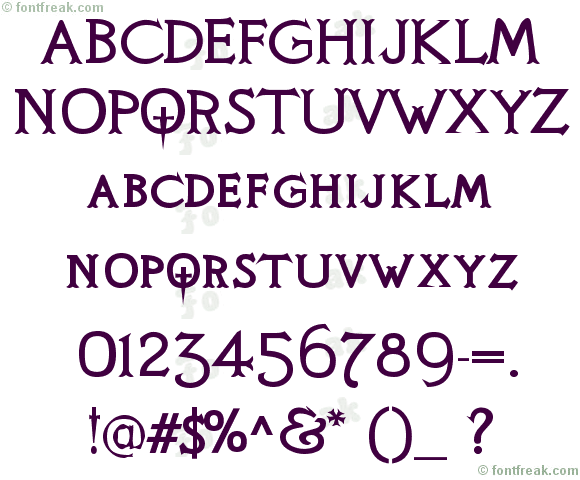
Knights Quest
The Knights Quest font, crafted by Gemfonts, is a striking display typeface that exudes a sense of adventure and medieval charm. This decorative font features a bold stroke weight, providing a commanding presence while maintaining a smooth and captivating aesthetic. The contrast in its letterforms gives it a dramatic flair, making it perfect for capturing attention. The spacing is thoughtfully designed to ensure clarity without sacrificing its whimsical character, while decorative elements, such as unique serifs and intricate detailing, evoke a sense of fantasy and exploration.
Knights Quest is an ideal choice for a variety of creative applications. It shines in projects like fantasy-themed wedding invitations, where its enchanting style can set the mood for a magical celebration. Movie posters, especially for adventure or fantasy films, benefit from the font's bold and eye-catching nature, drawing viewers in with its distinct personality. Restaurant menus that want to convey a theme of rustic charm can also utilize Knights Quest, creating an immersive dining experience. Additionally, content creators and graphic designers can leverage this font for eye-catching social media graphics, promotional materials, and event flyers that require a touch of medieval elegance.
The target audience for Knights Quest includes graphic designers, small business owners, and content creators seeking a unique typeface that stands out in a crowded marketplace. Its versatility allows it to be used across various platforms while retaining its distinct character.